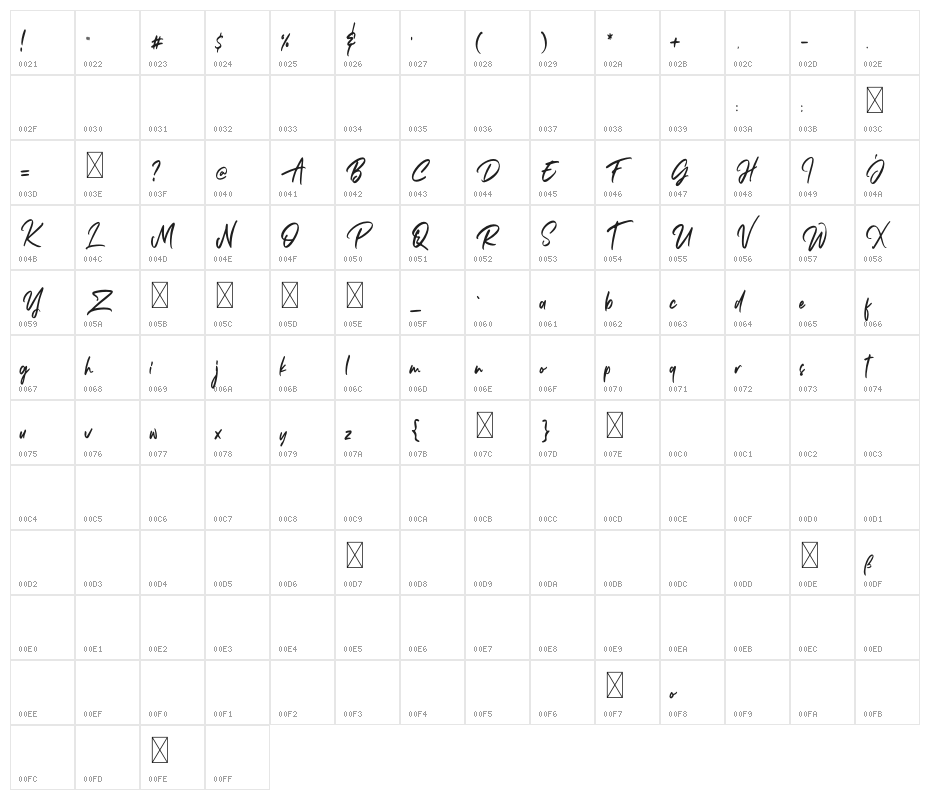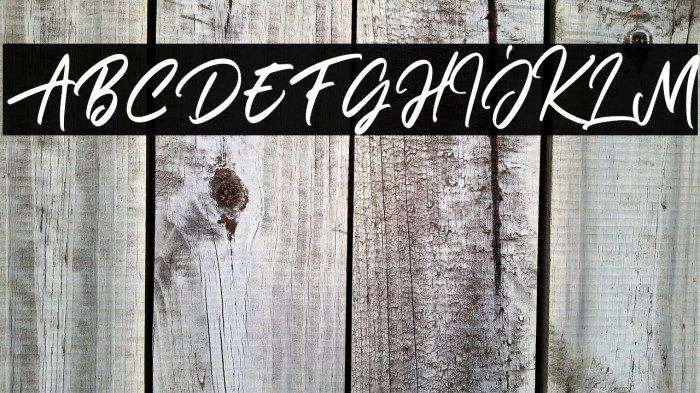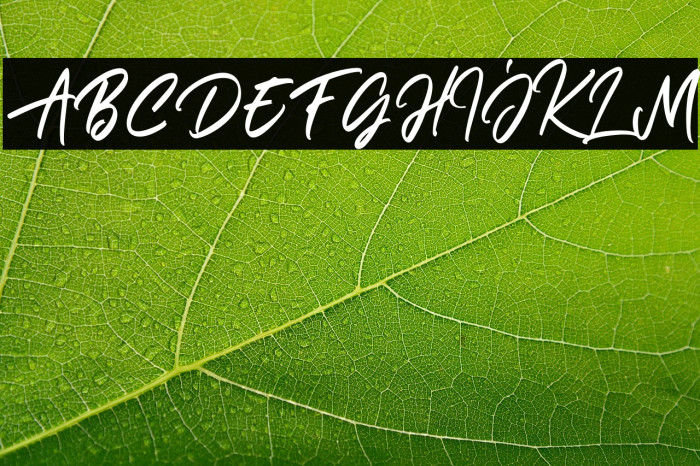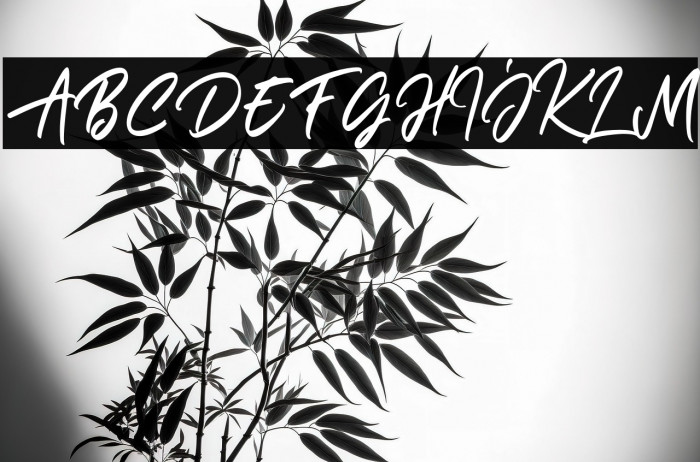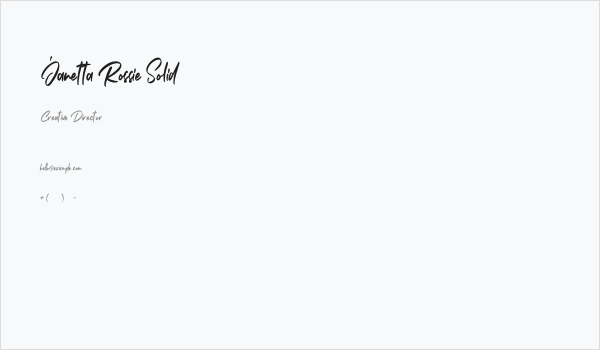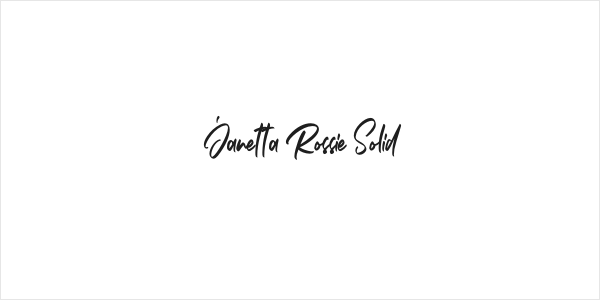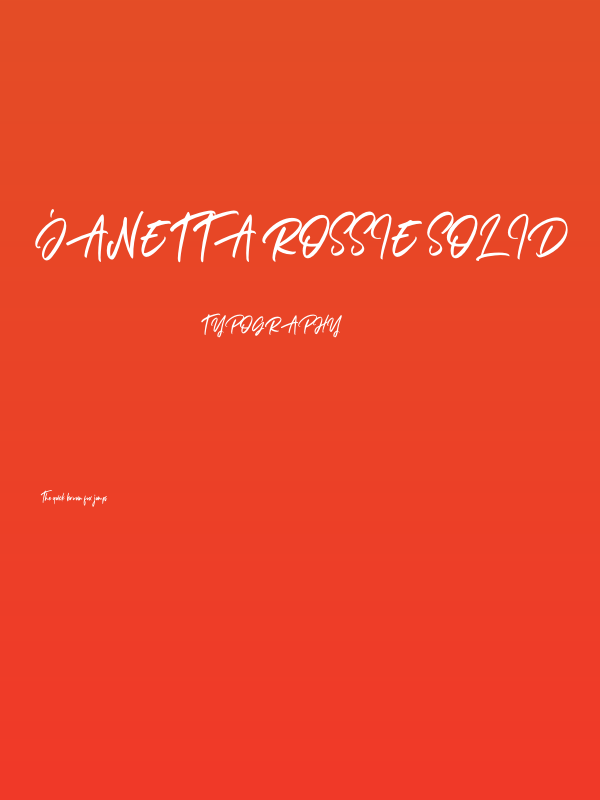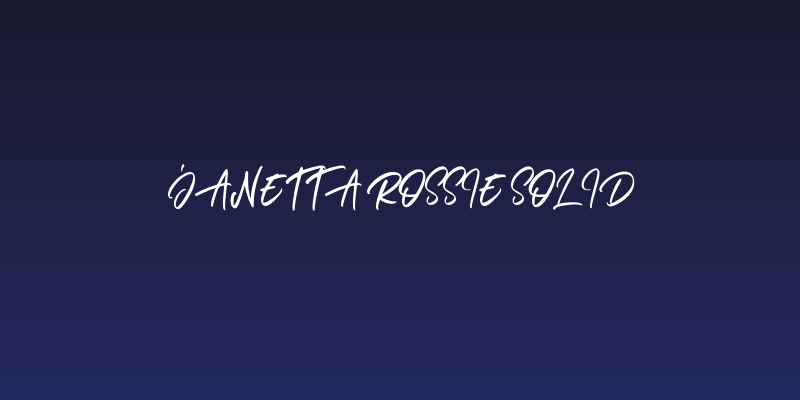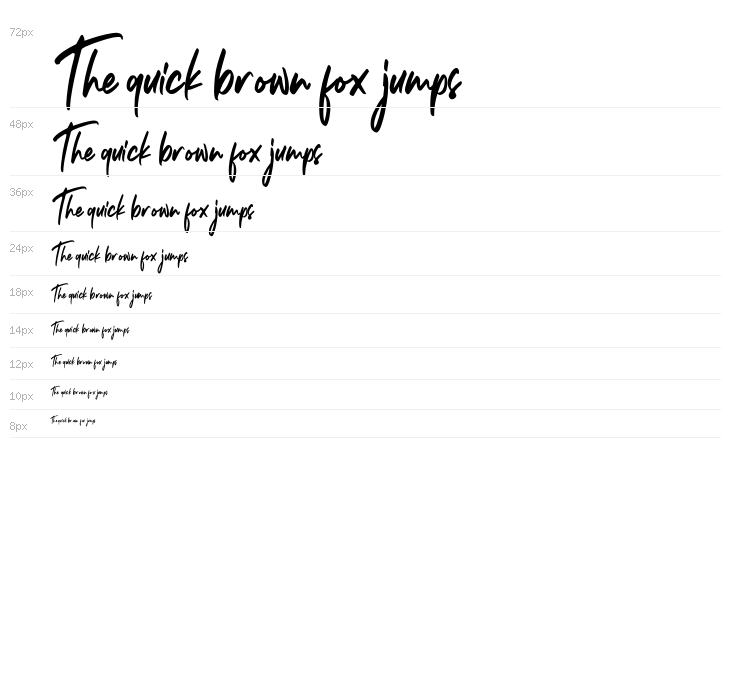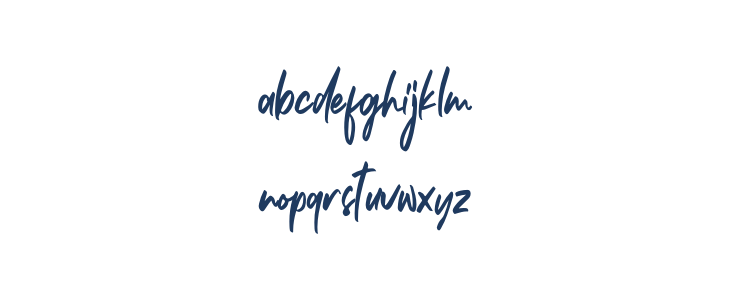
Janetta Rossie Solid Font
Janetta Rossie Solid Description
This font exhibits a dynamic and expressive handwritten style, characterized by its fluid and cursive letterforms. The uppercase letters are bold and sweeping, with a sense of movement that adds a lively touch to any text. The lowercase letters maintain a consistent flow, complementing the uppercase with their smooth curves and elegant connections. The numerals and special characters are crafted with the same attention to detail, ensuring a cohesive look across all elements. This font's design is both modern and artistic, making it suitable for creative projects that require a personal and unique touch.